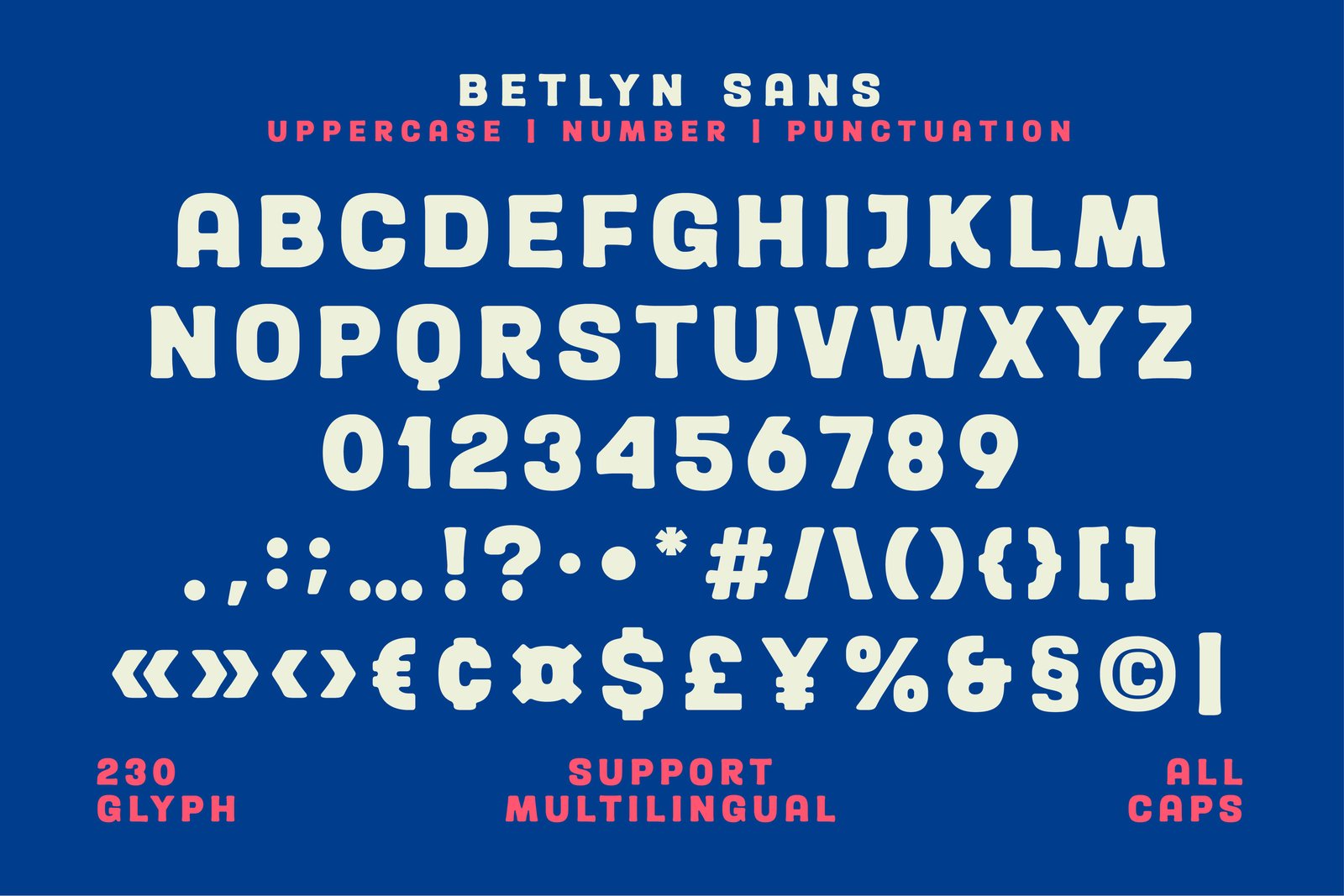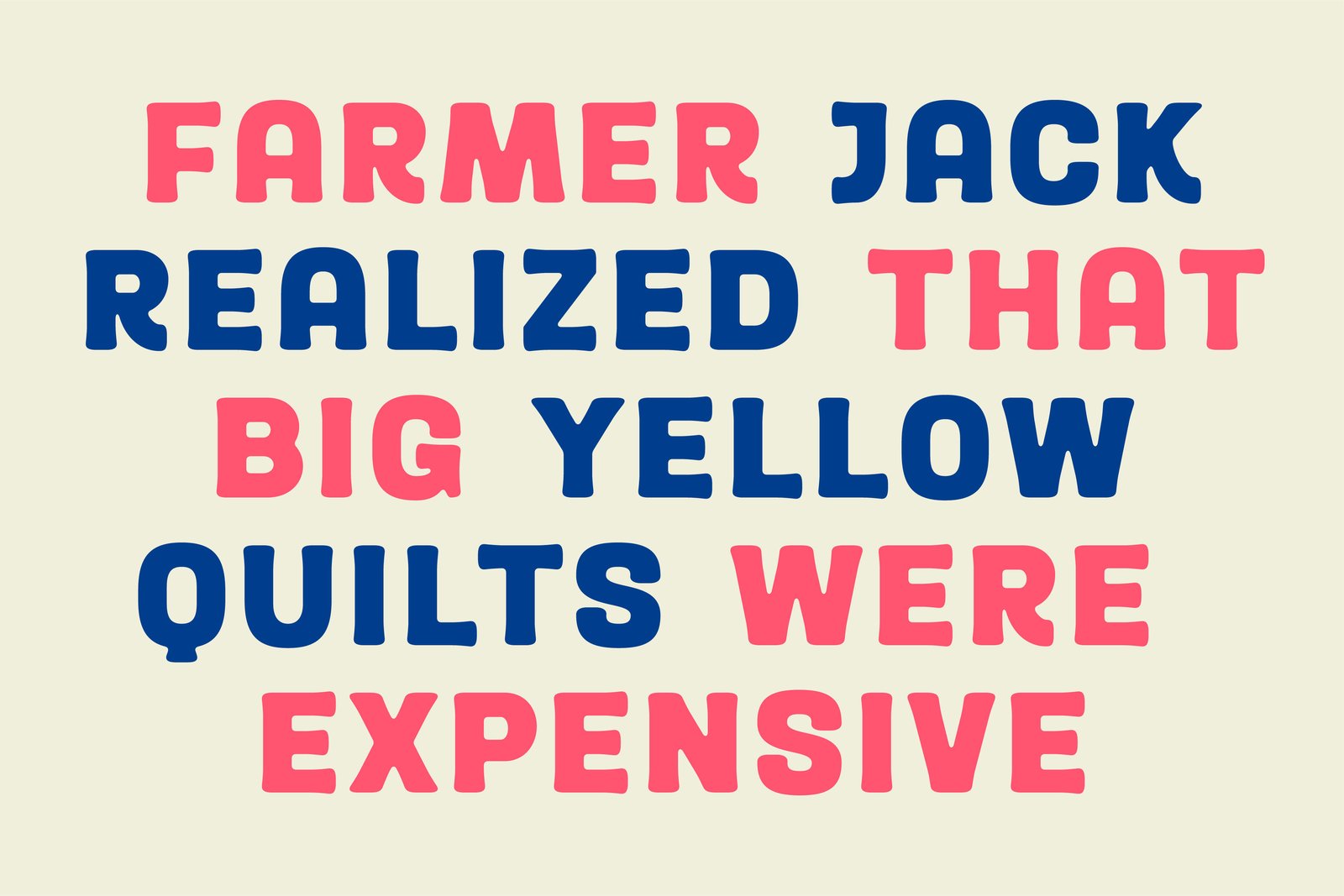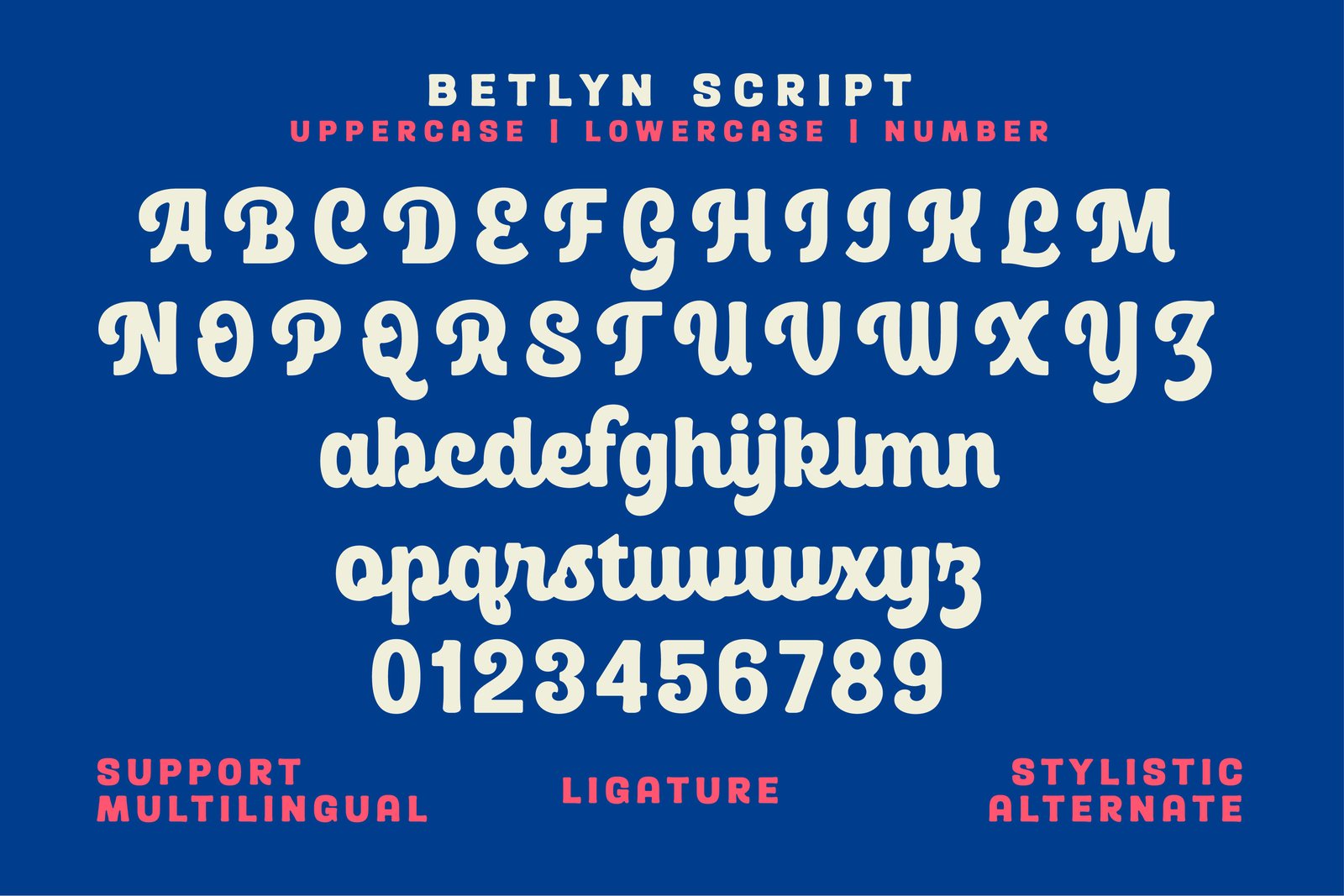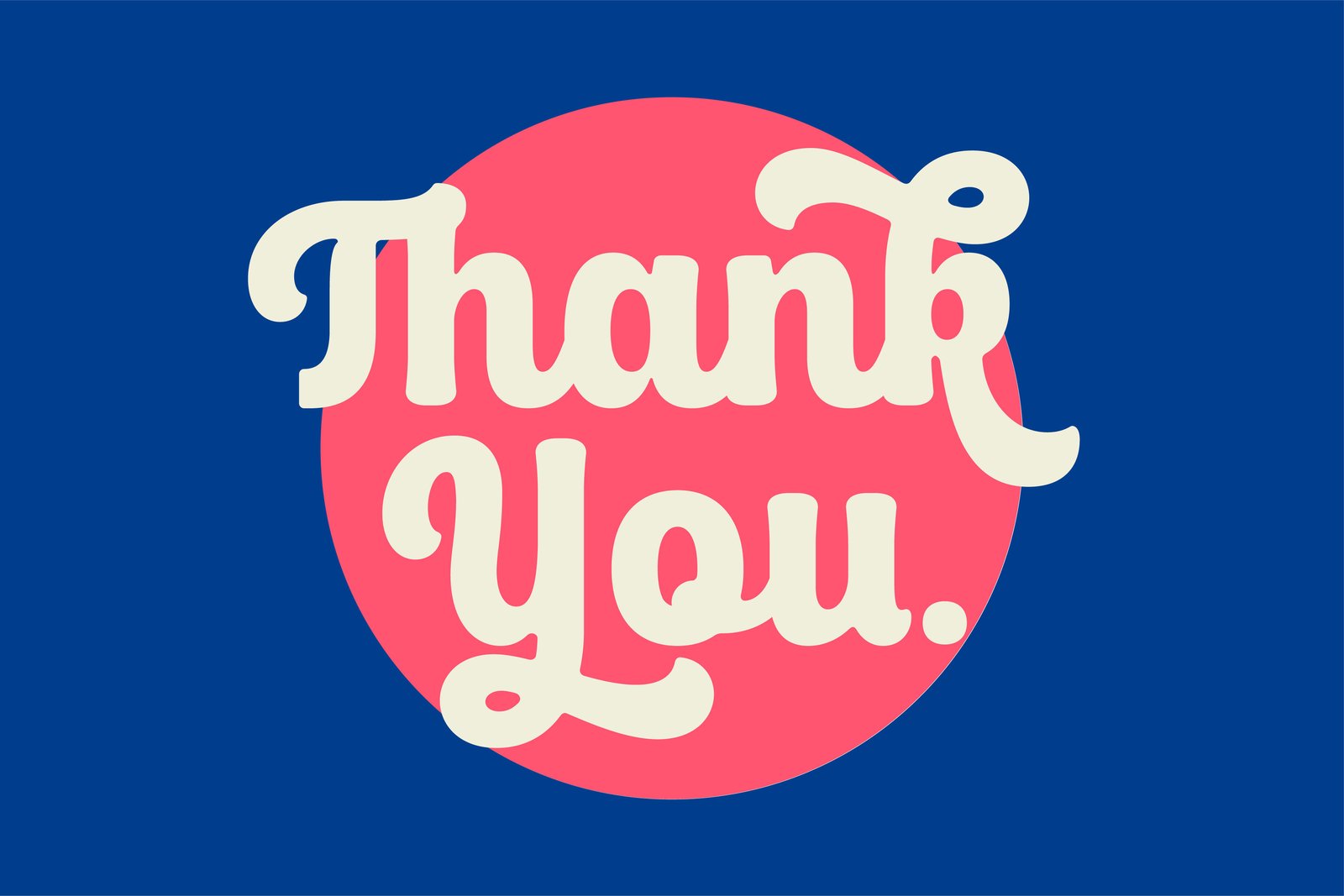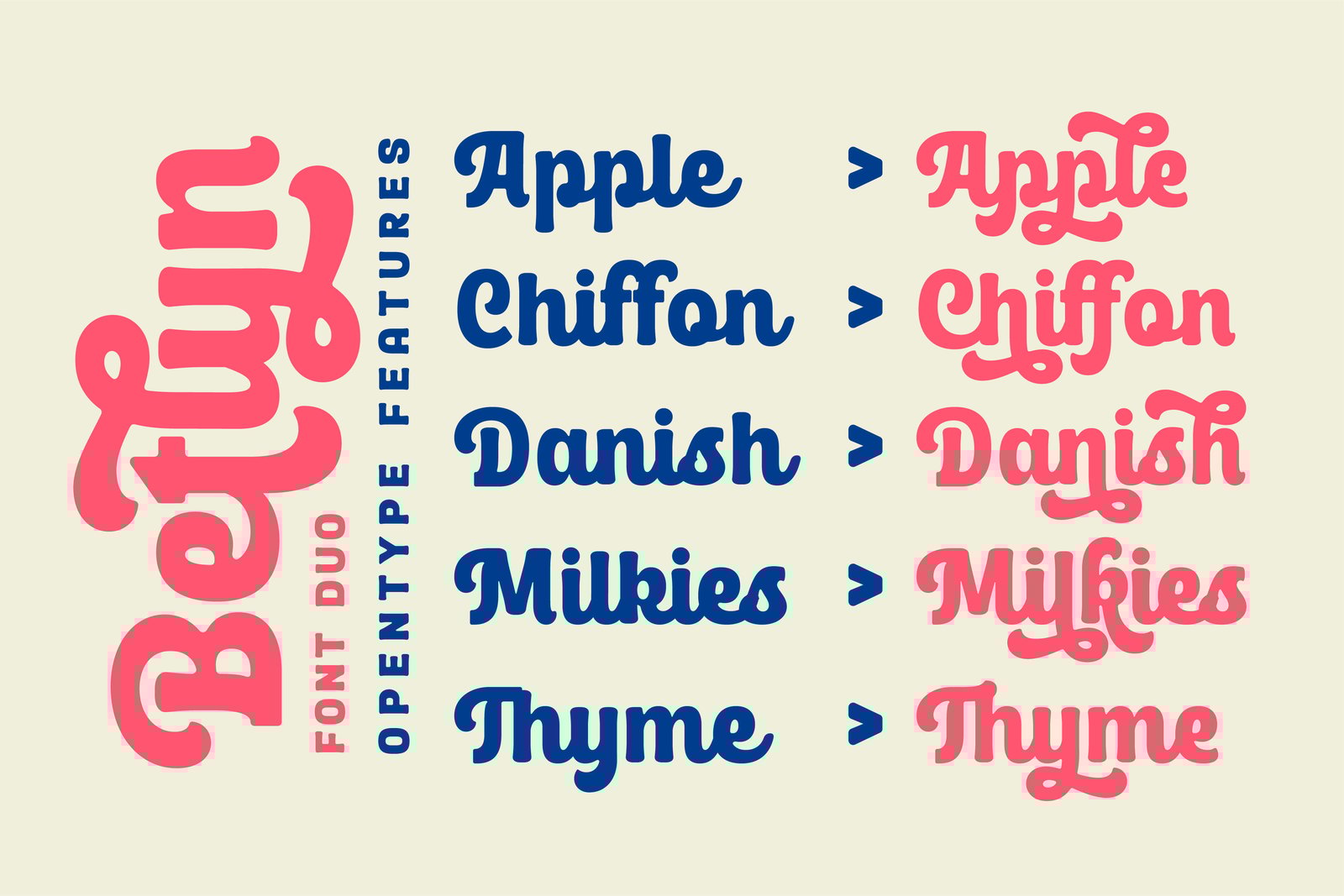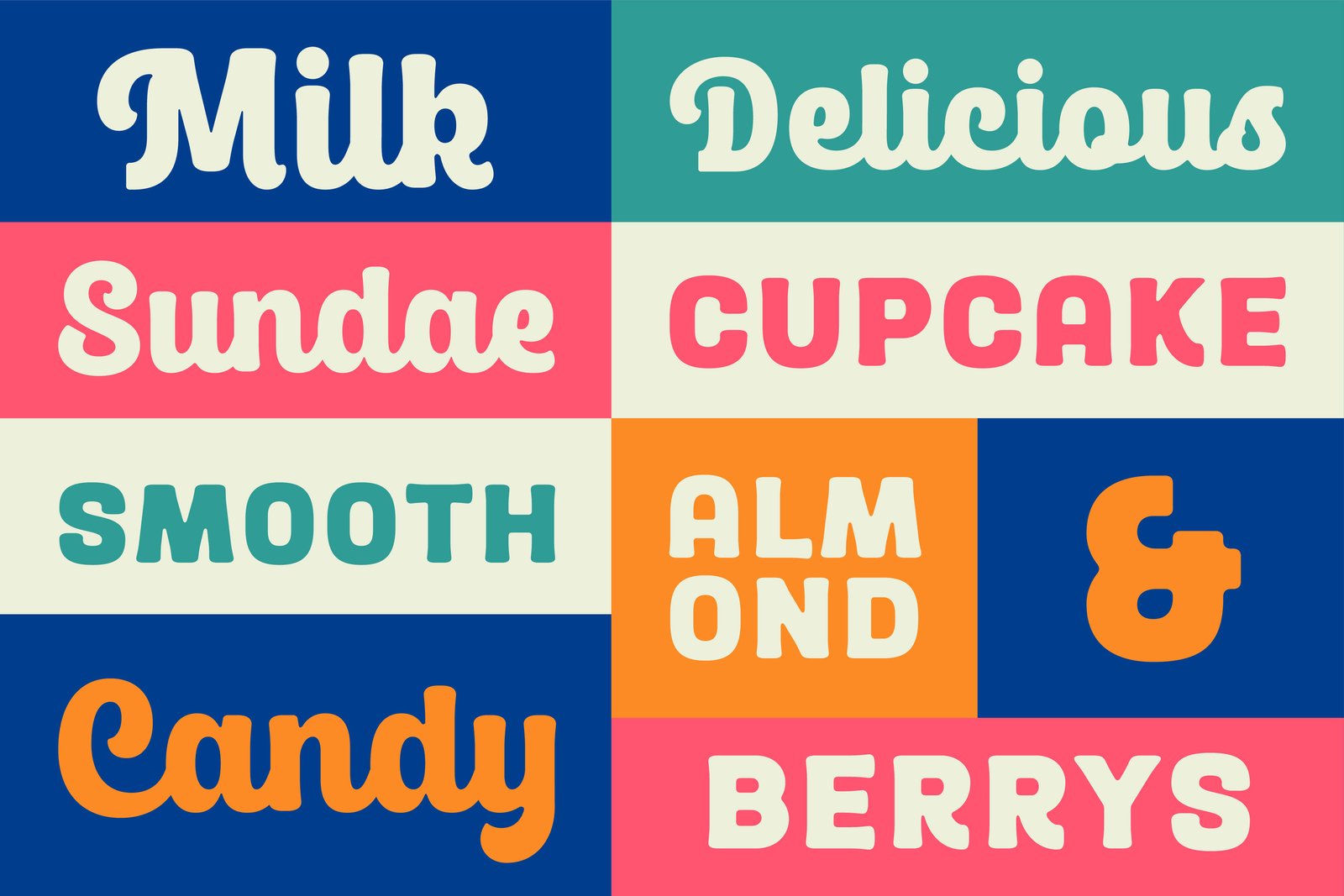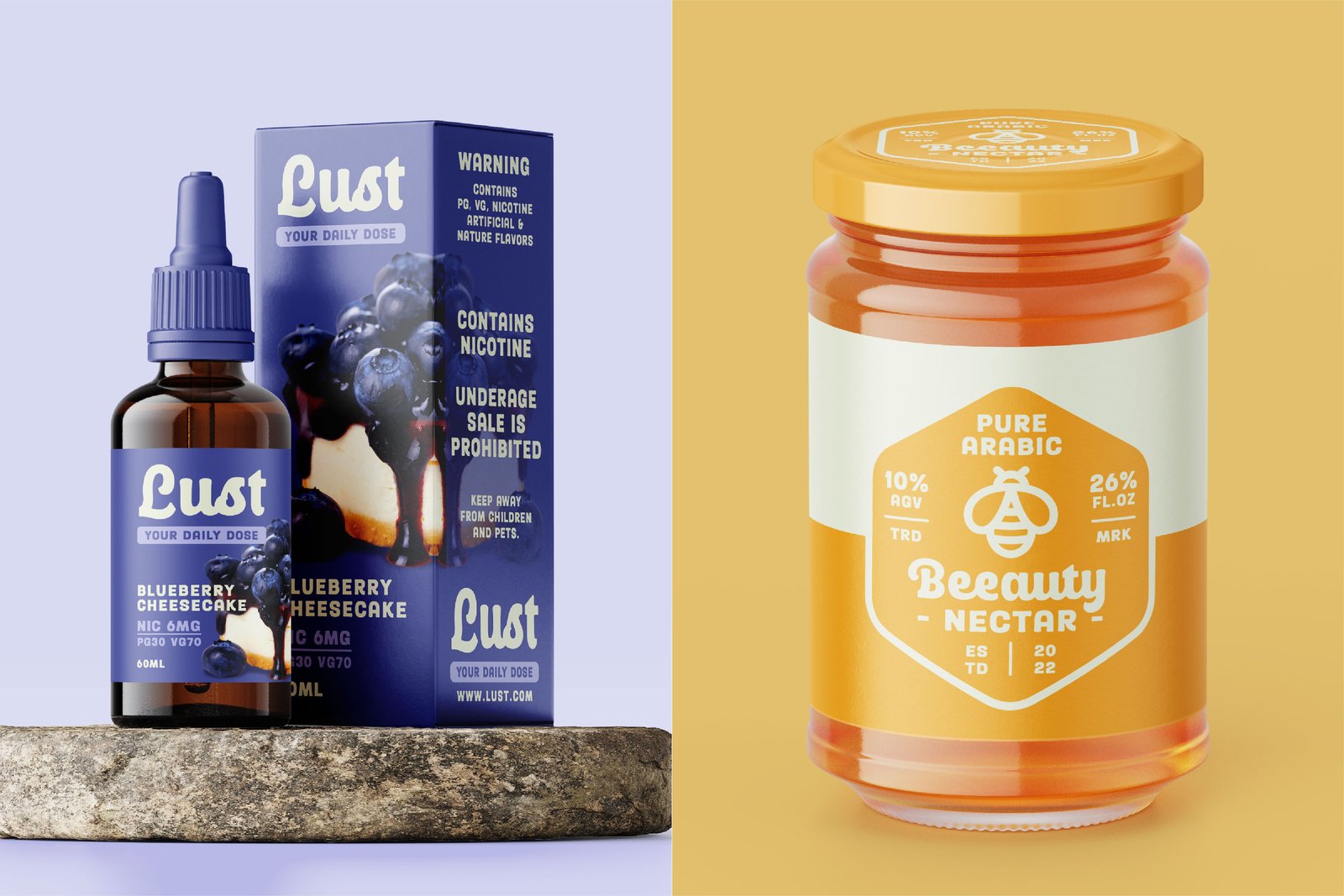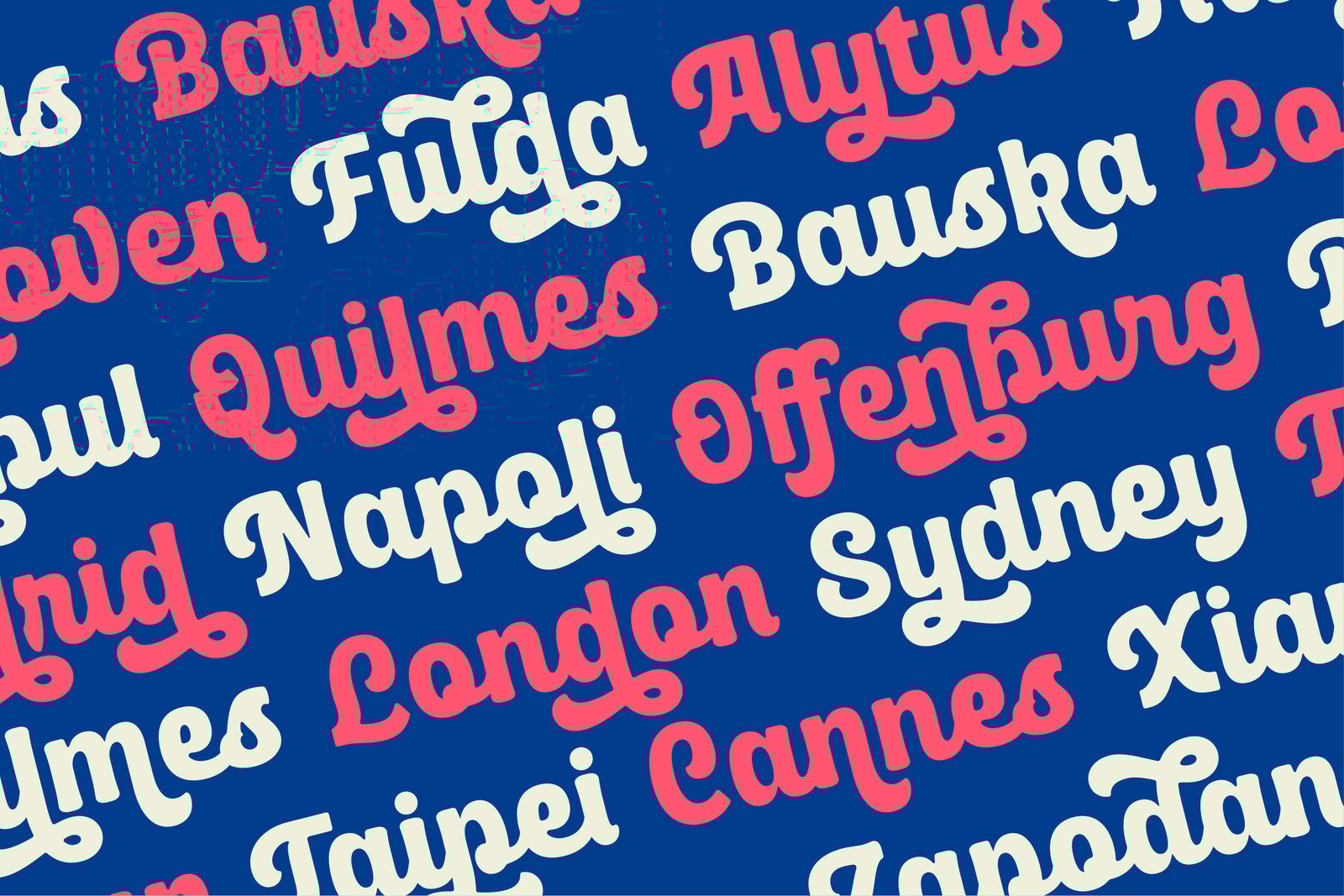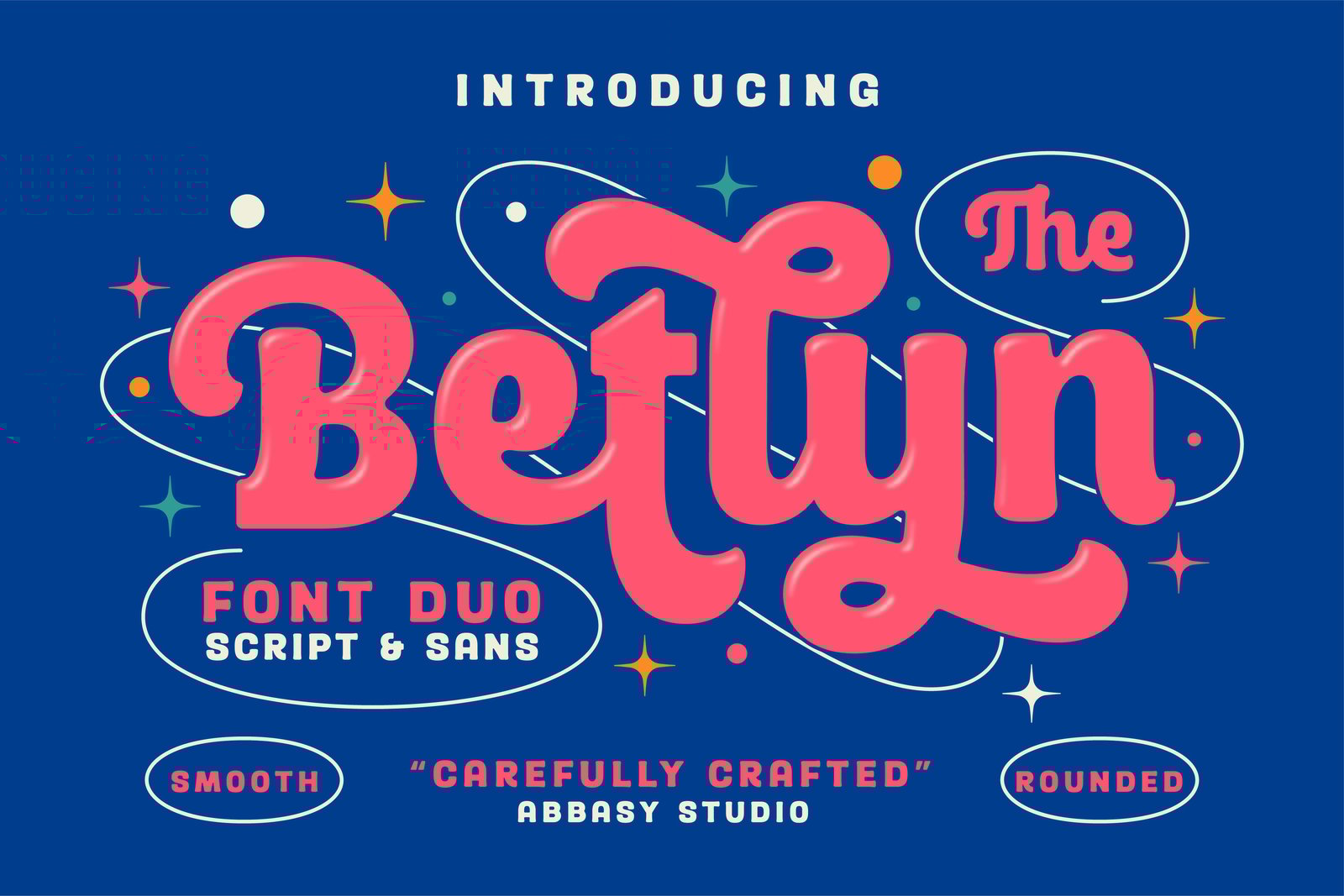
Betlyn Font
Betlyn, is a pair of smooth sans serif and delicious bold script. The script font comes with some alternates and ligature as well to create your design more unique. With additional sans font you will be able to create the beautiful combination. This type of font perfectly suitable for made to be applied in created food & beverages branding as product packaging. This font also perfect for poster, business cards, headline, restaurant menus, or any type of advertising purpose.
Betlyn Features :
- Numbers & Punctuation
- Alternates & Ligatures